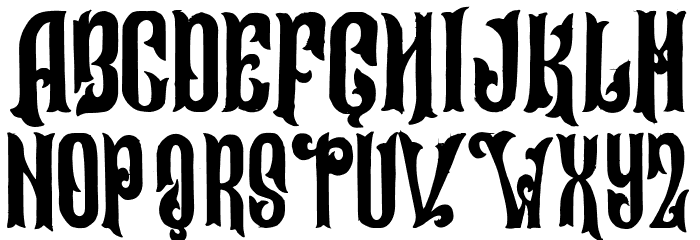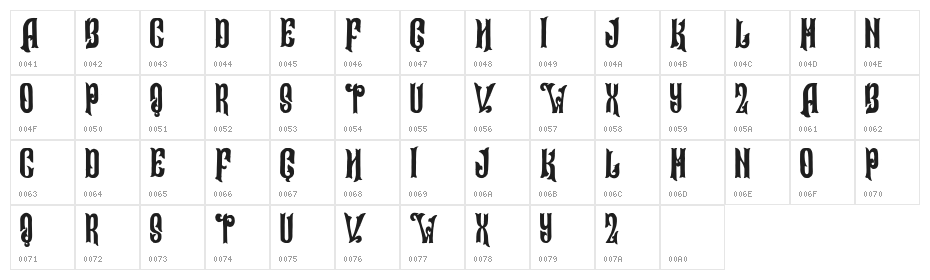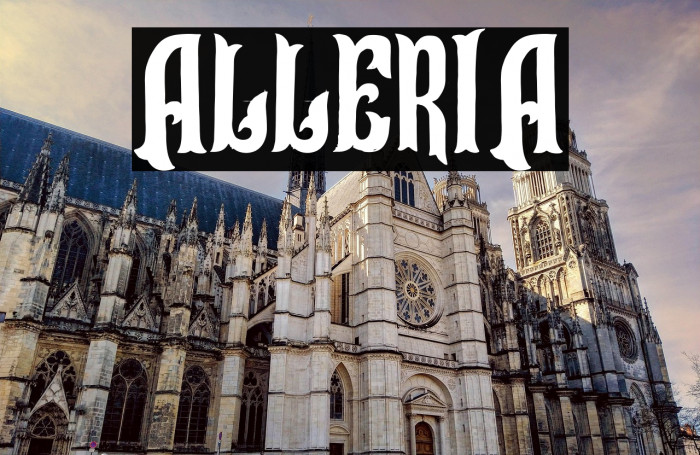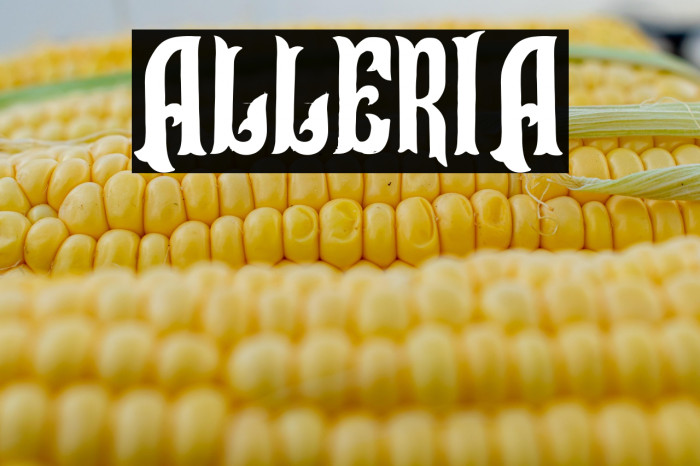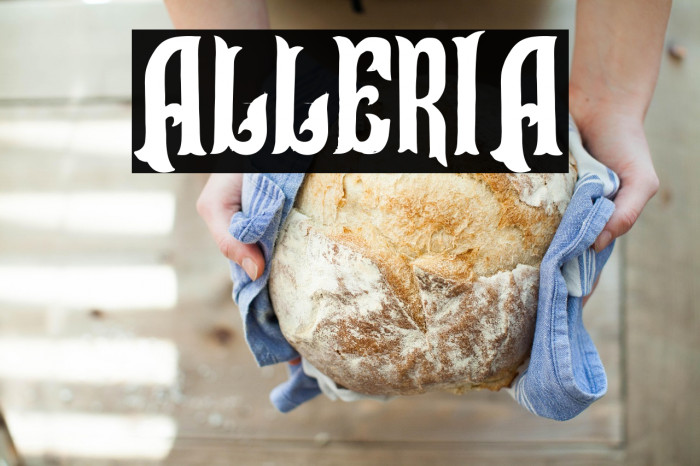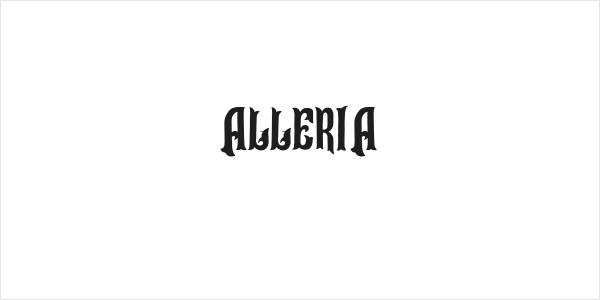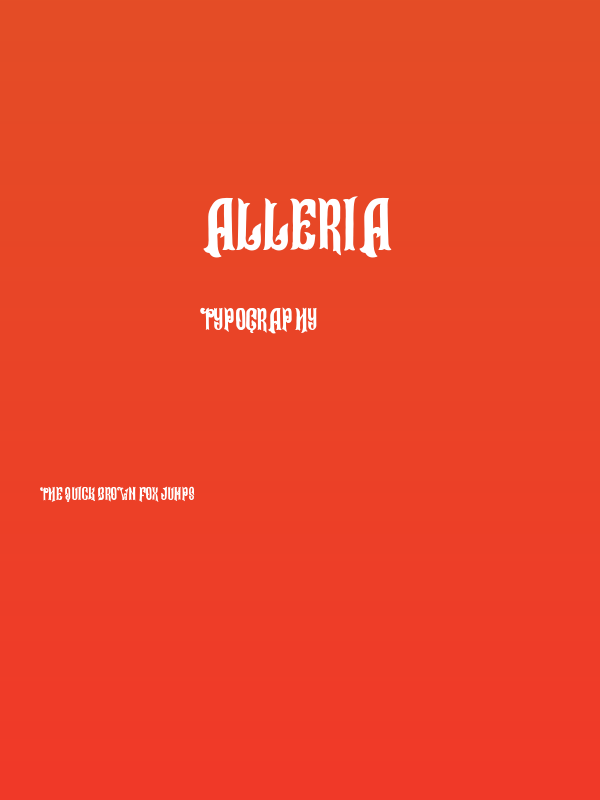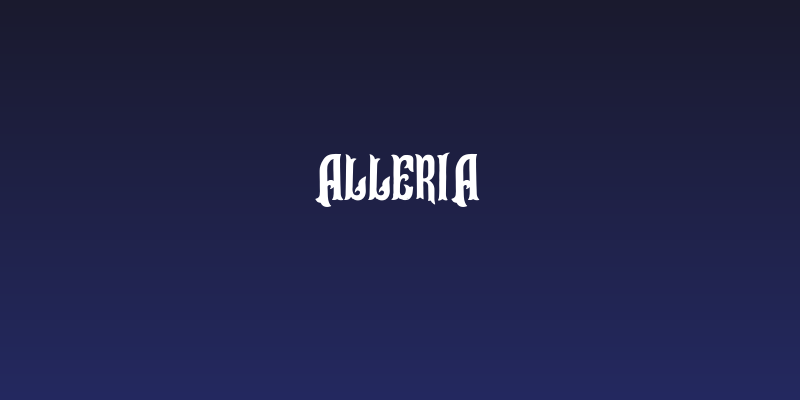
Alleria Font
This font features a bold and dramatic style with intricate details reminiscent of Gothic or medieval script. The characters are highly stylized, with sharp edges and elaborate curves that give it a distinct and ornate appearance. The uppercase letters are particularly striking, with unique flourishes and embellishments that add to its decorative nature. The font's overall design is both eye-catching and sophisticated, making it suitable for projects that require a touch of elegance and historical flair.
A bold, decorative font with Gothic-inspired details and ornate styling.
- Proposed Projects: Ideal for use in branding, posters, book covers, or any design work that seeks to evoke a sense of history or grandeur.